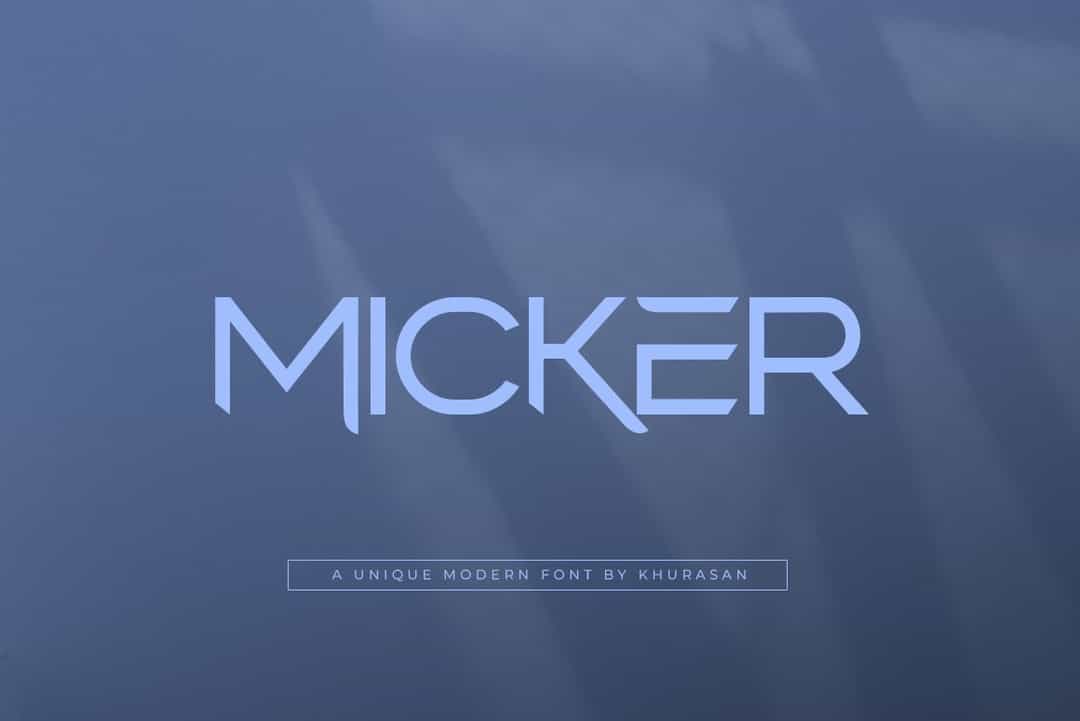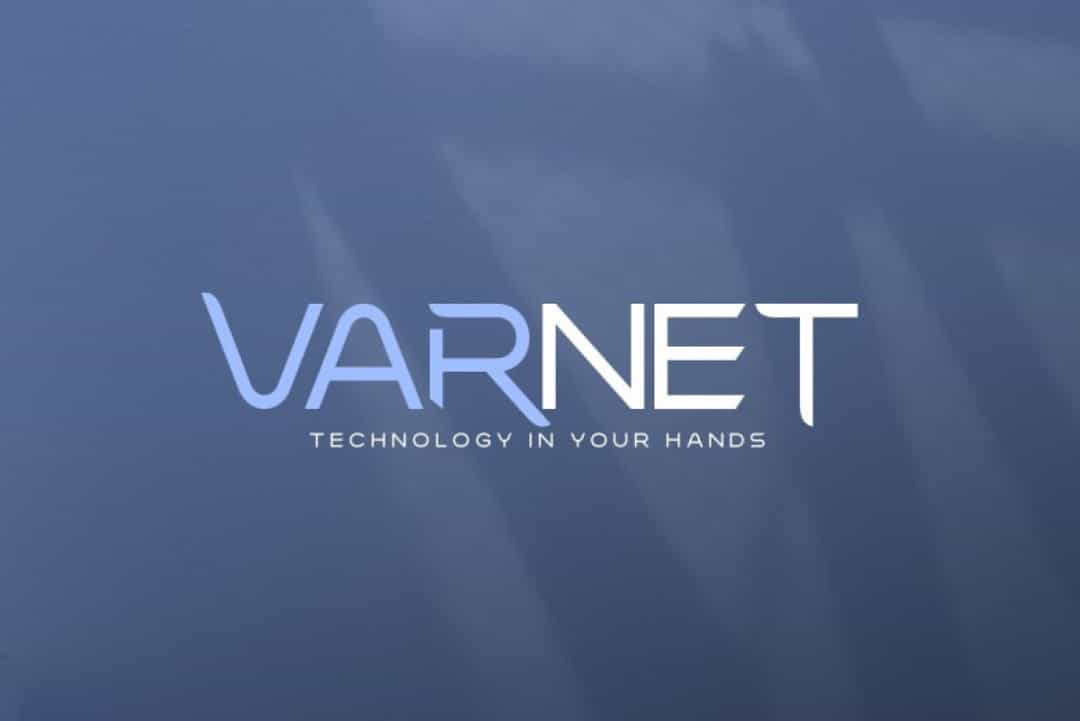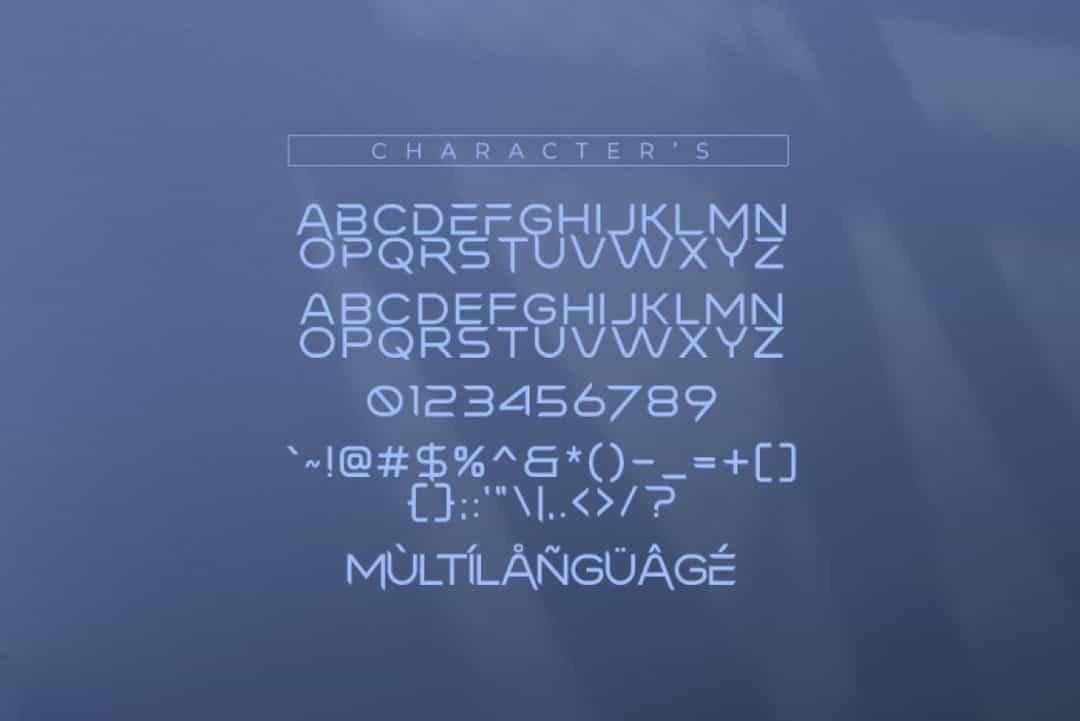
Micker is a stylish contemporary sans serif font designed with soft lines that makes this font appear elegant and feminine, ideal for branding feminine products and services. Ideal for logos as well as branding materials like greeting card posters and designs created for greeting cards… this font can create beautiful results when combined with other fonts!…!